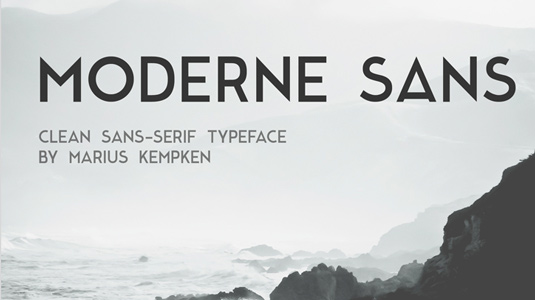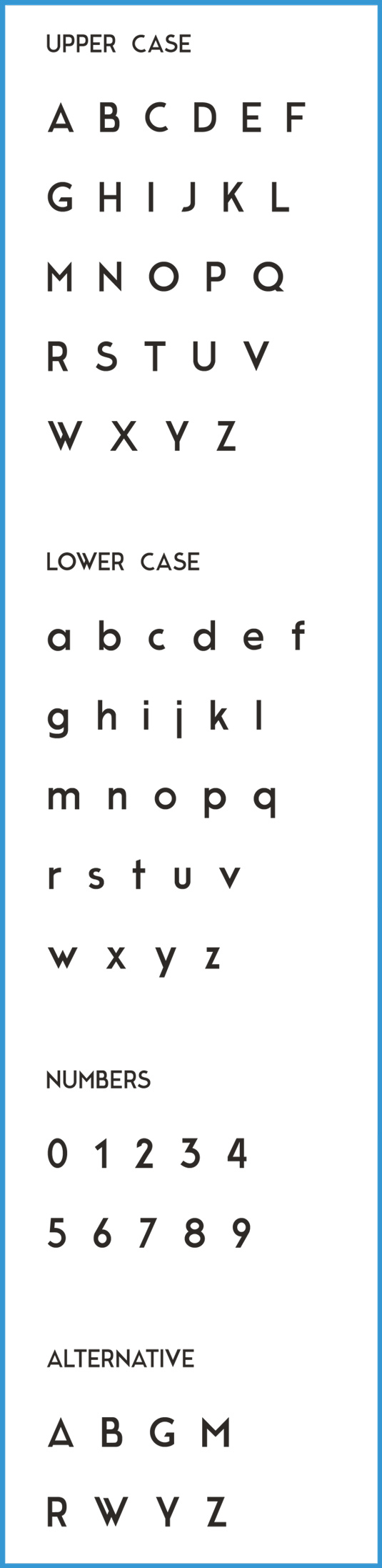
Font of the day: Moderne Sans
Every day we showcase the best fonts on the web. Today it's Moderne Sans by Karius Kempken, which is totally free to download!
Moderne Sans by Marius Kempken
A clean and elegant sans serif typeface, Moderne Sans was created by graphic designer Marius Kempken. "Moderne Sans is a free font, inspired by 1920s typography," Kempken comments on Behance. "The design is based on uppercase letters, but I created lowercase letters, numbers and some alternative letters too."